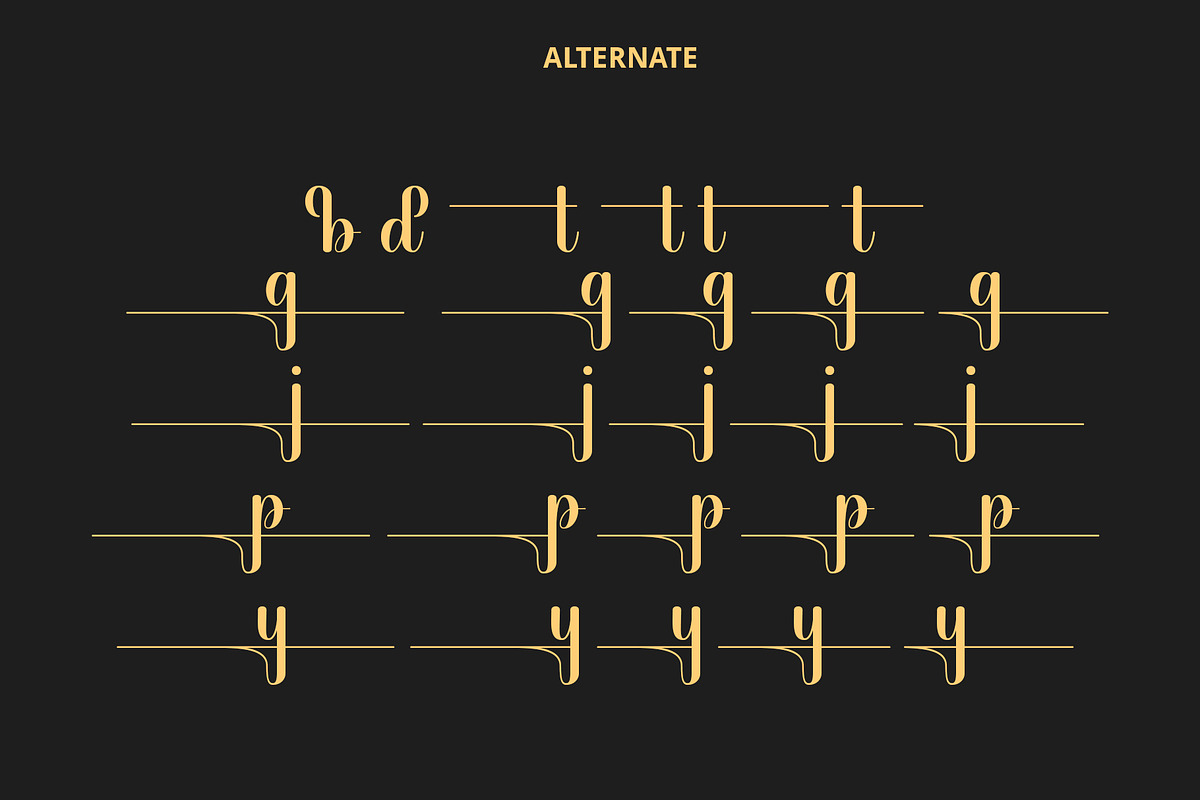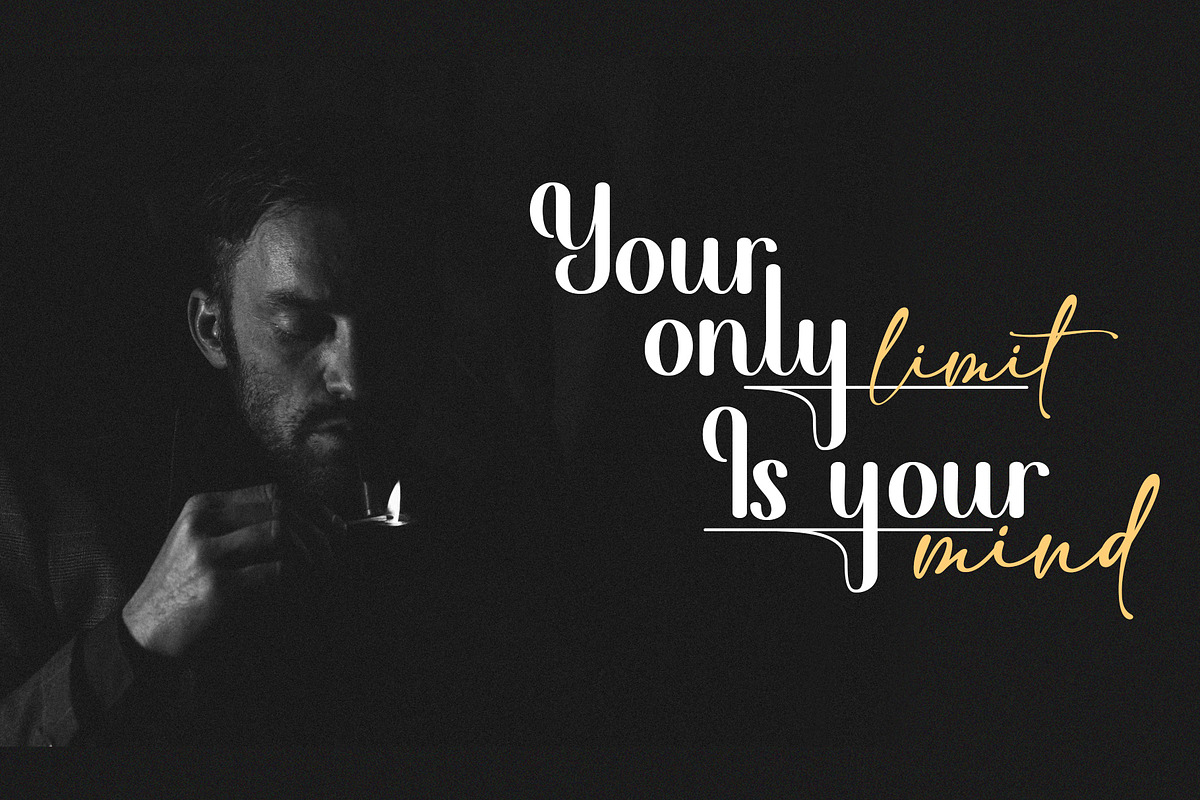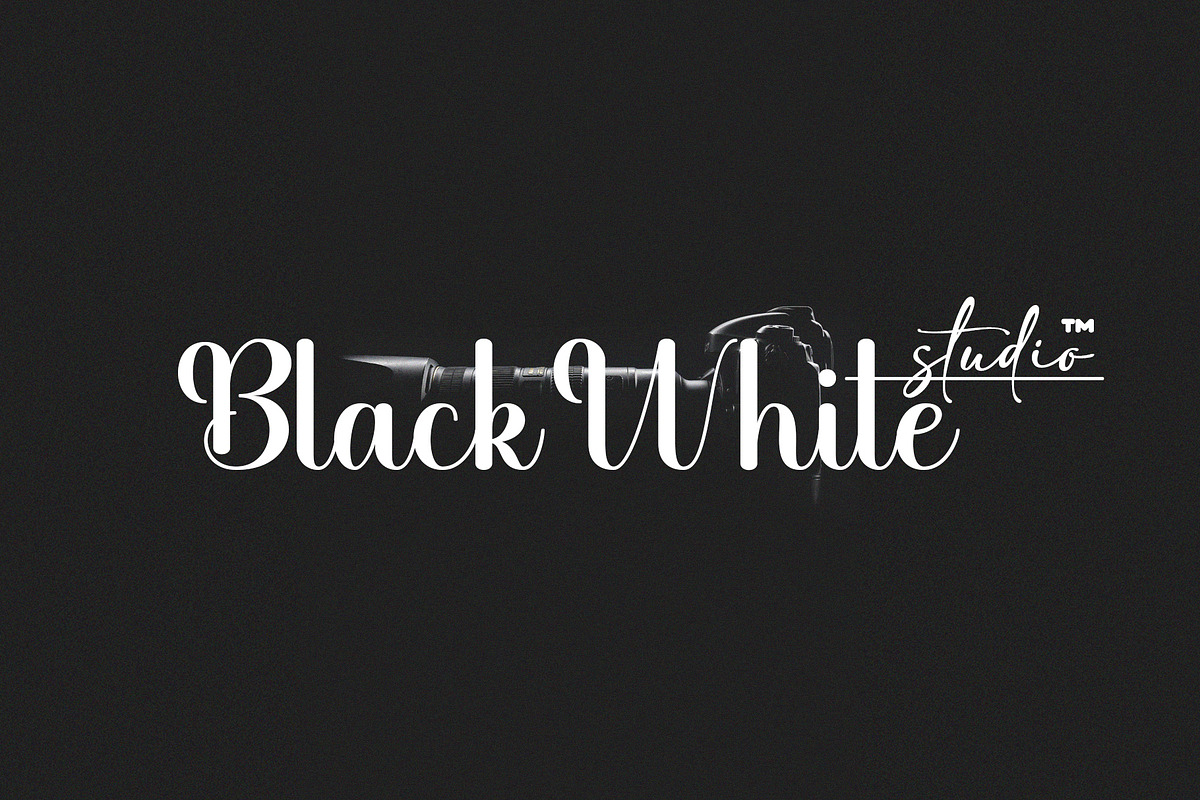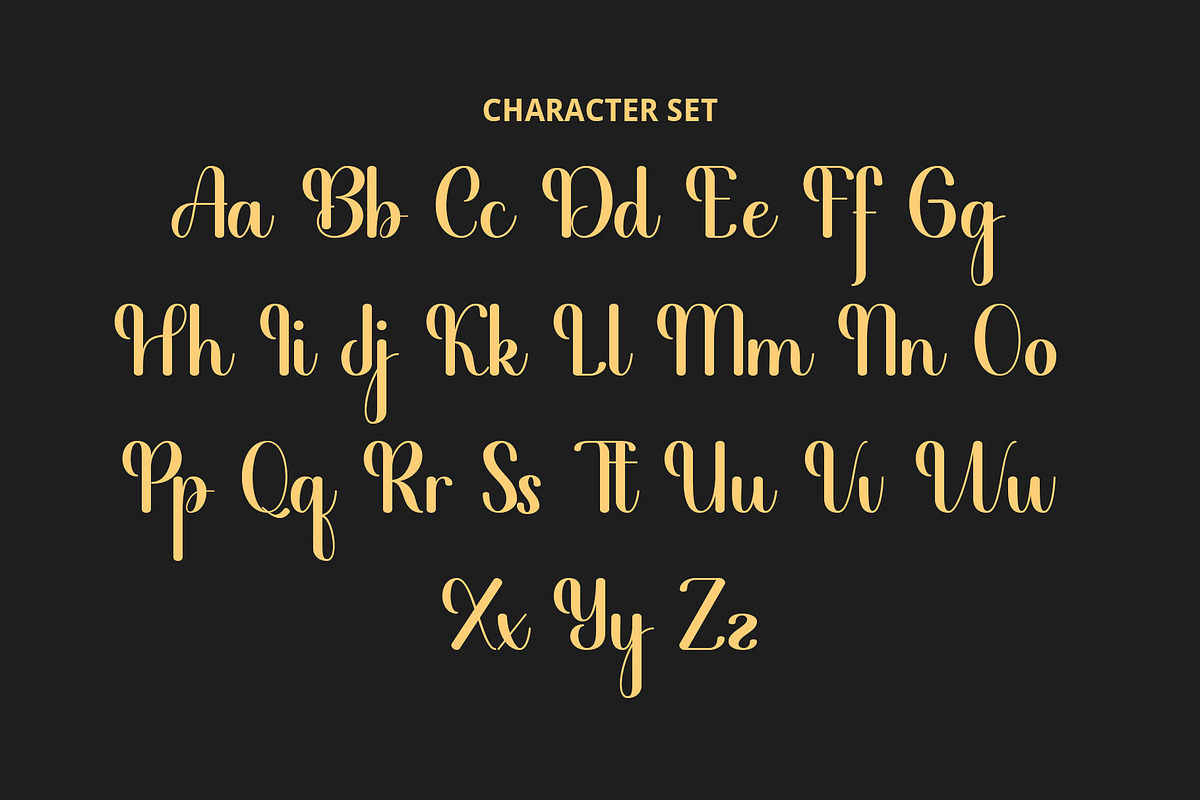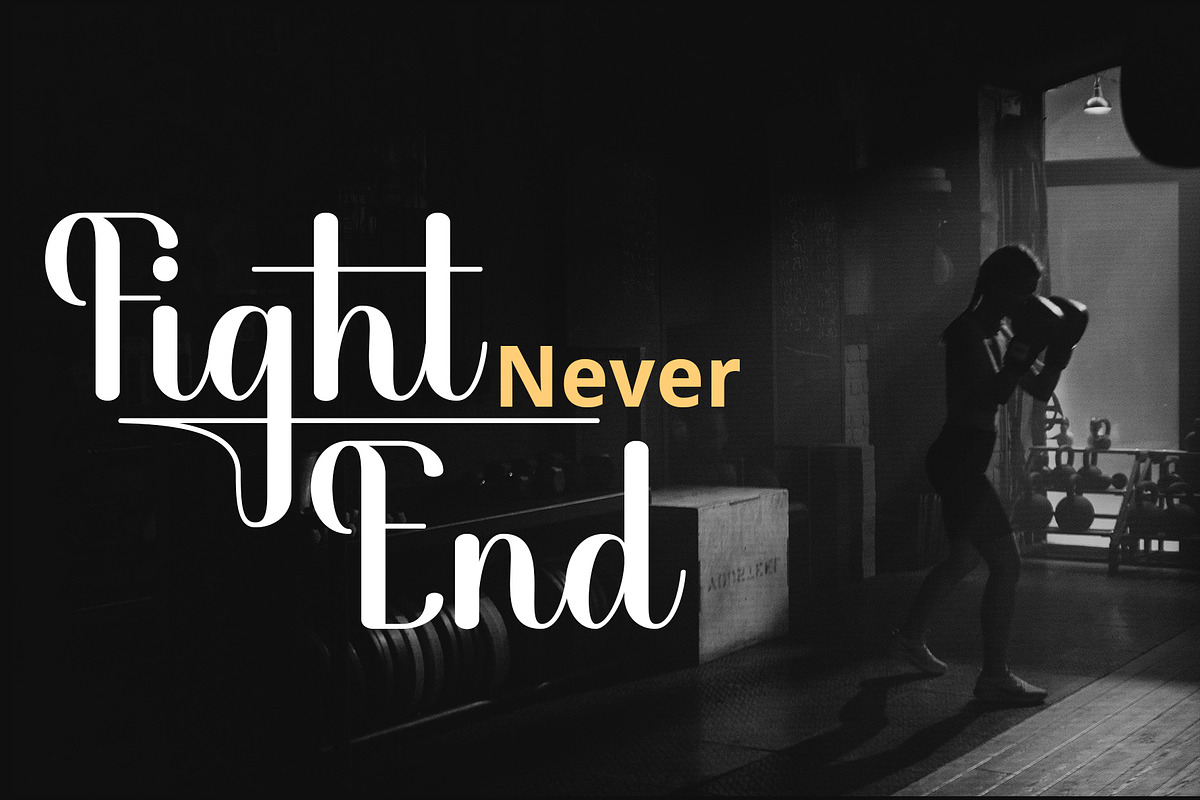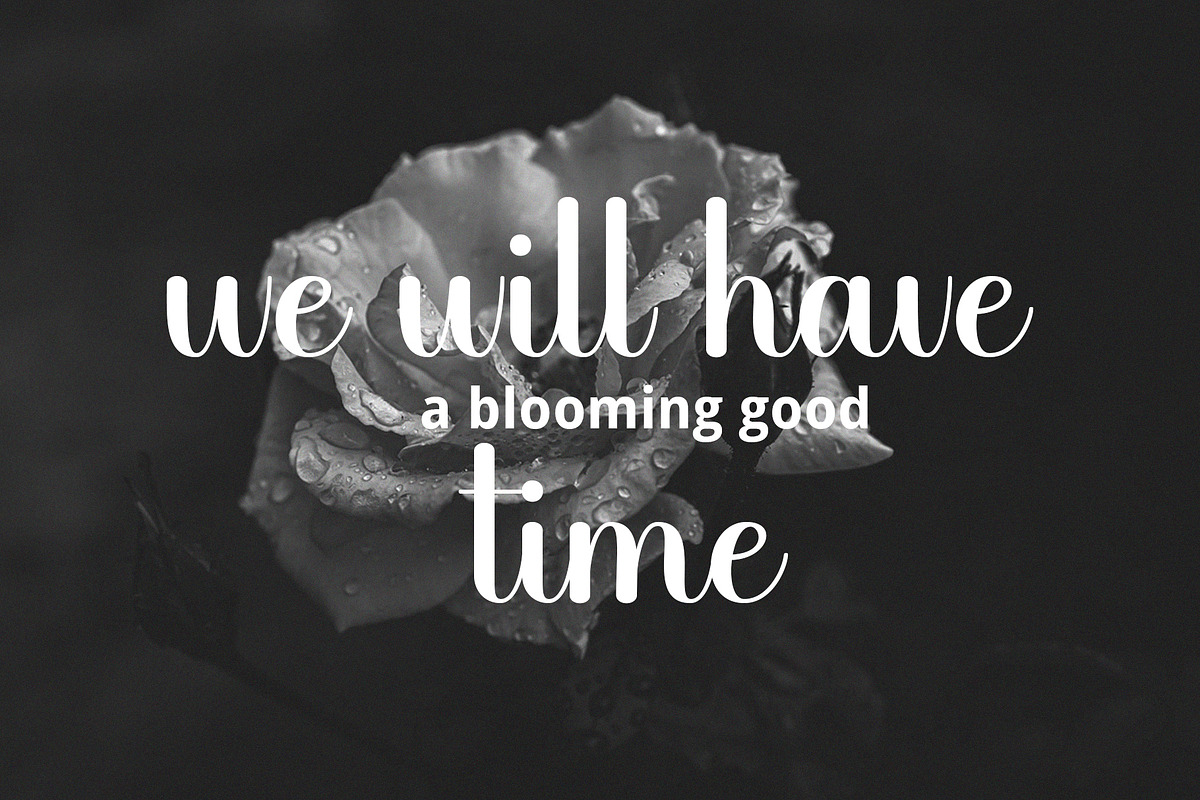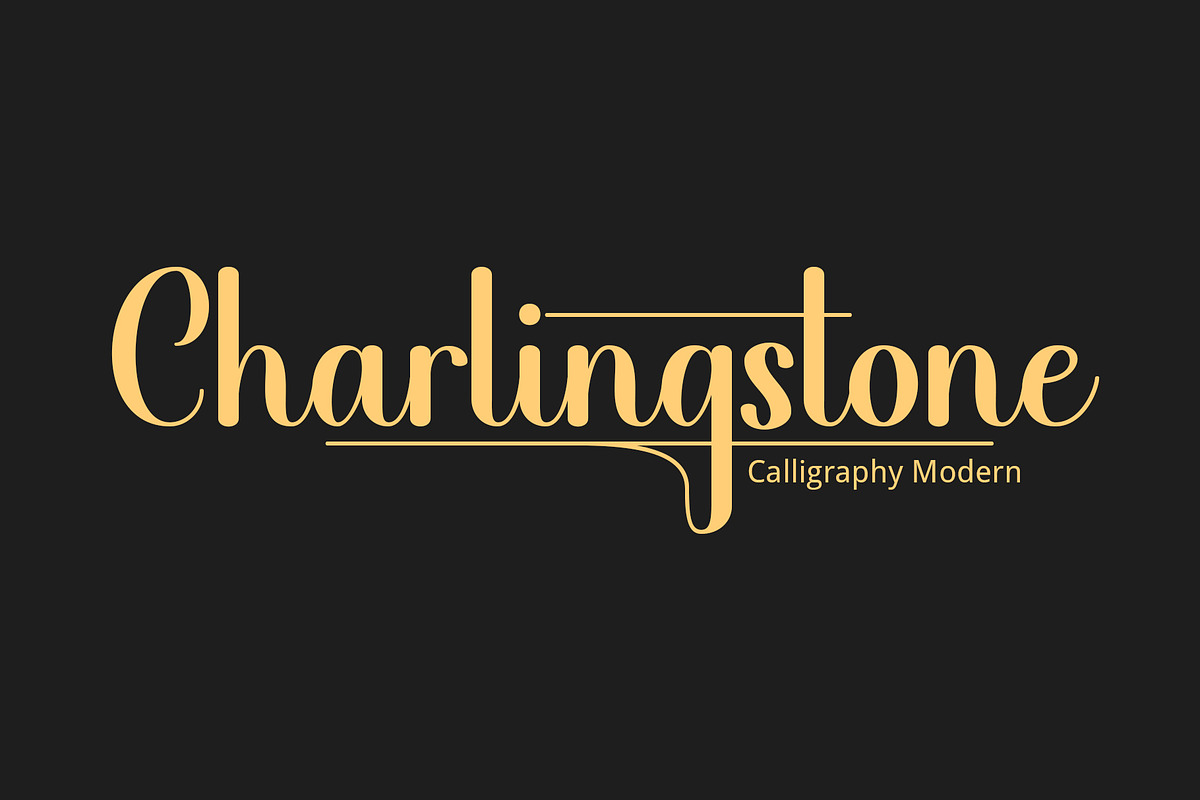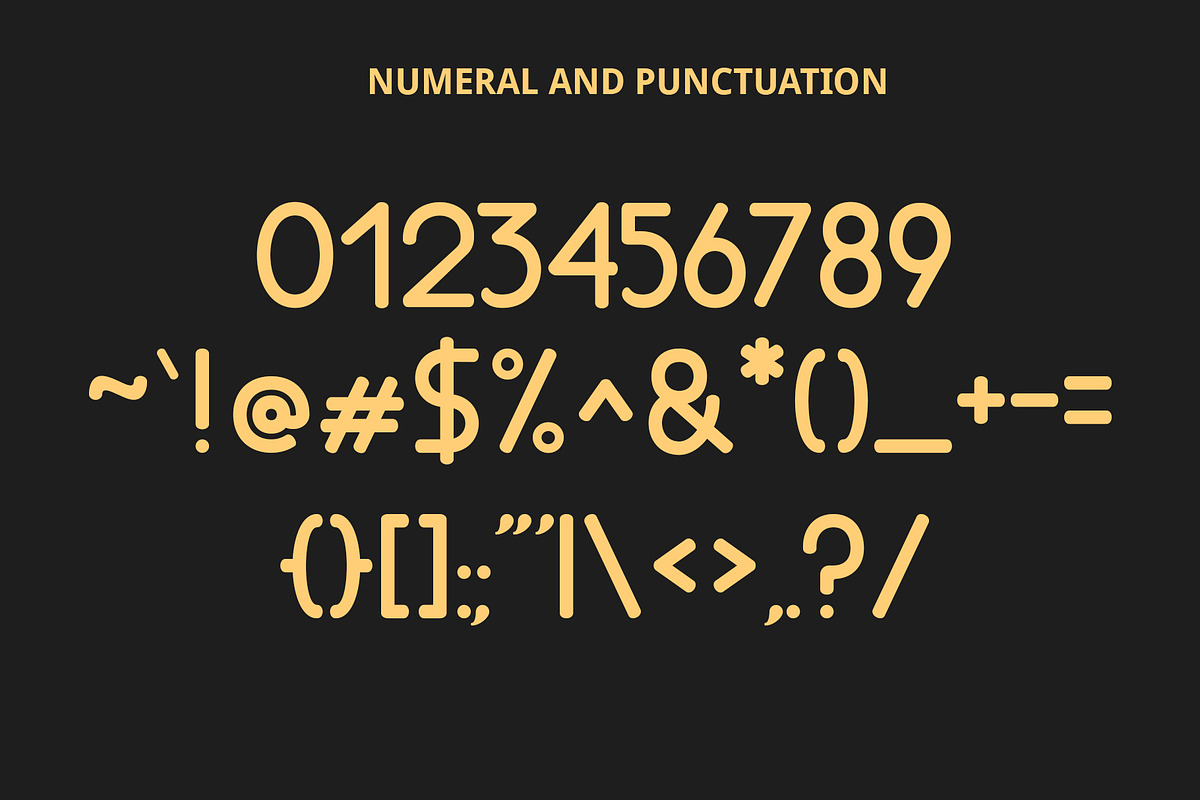
Charlingstone
Charlingstone is a Modern Calligraphy font with a unique alternative. This font is perfect for, wedding stationery, logos, modern websites, and more. Charlingstone has a total of 237 glyphs, this font also has ligature and language support. Charlingstone is made in a bold, upright style.